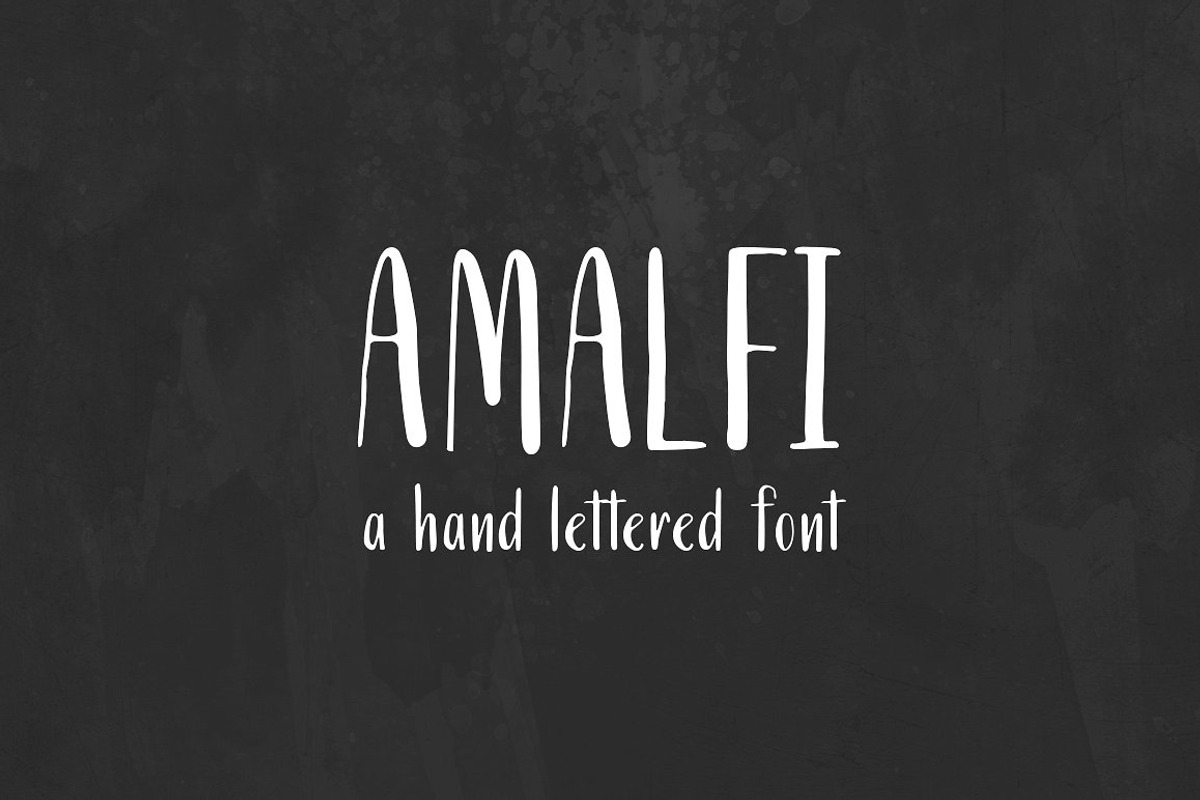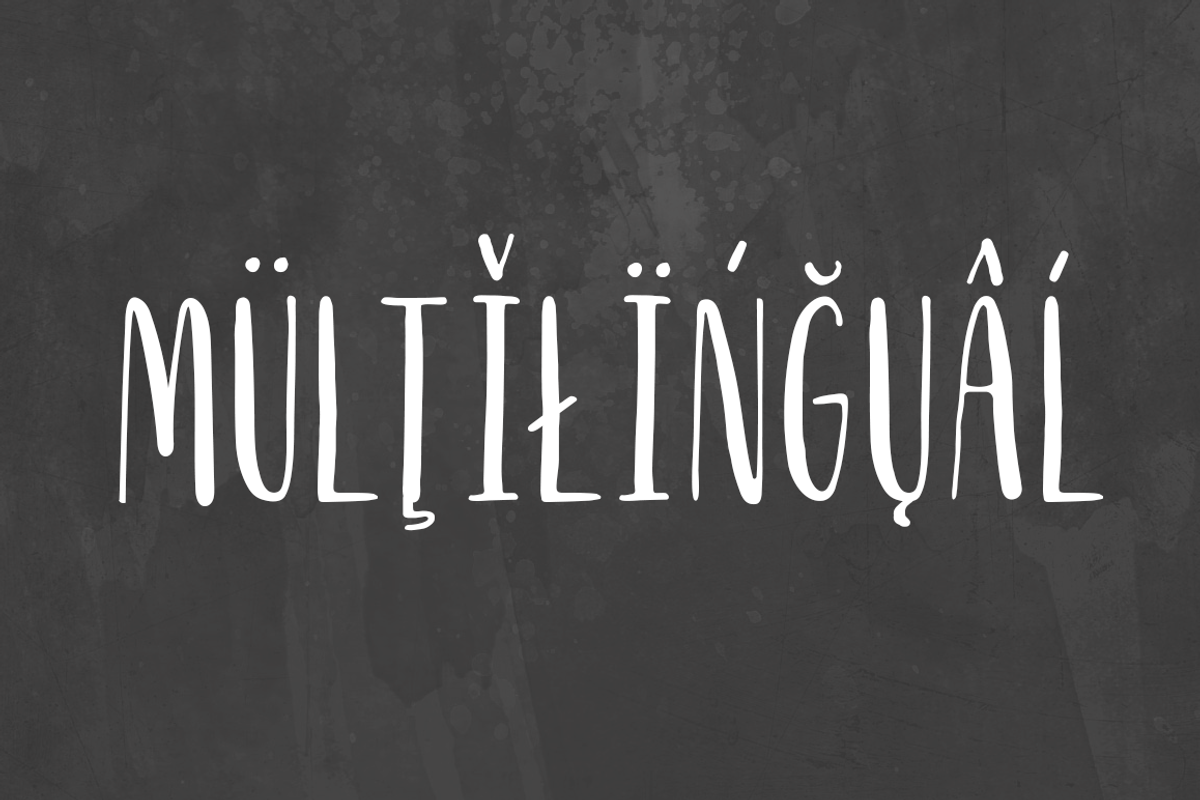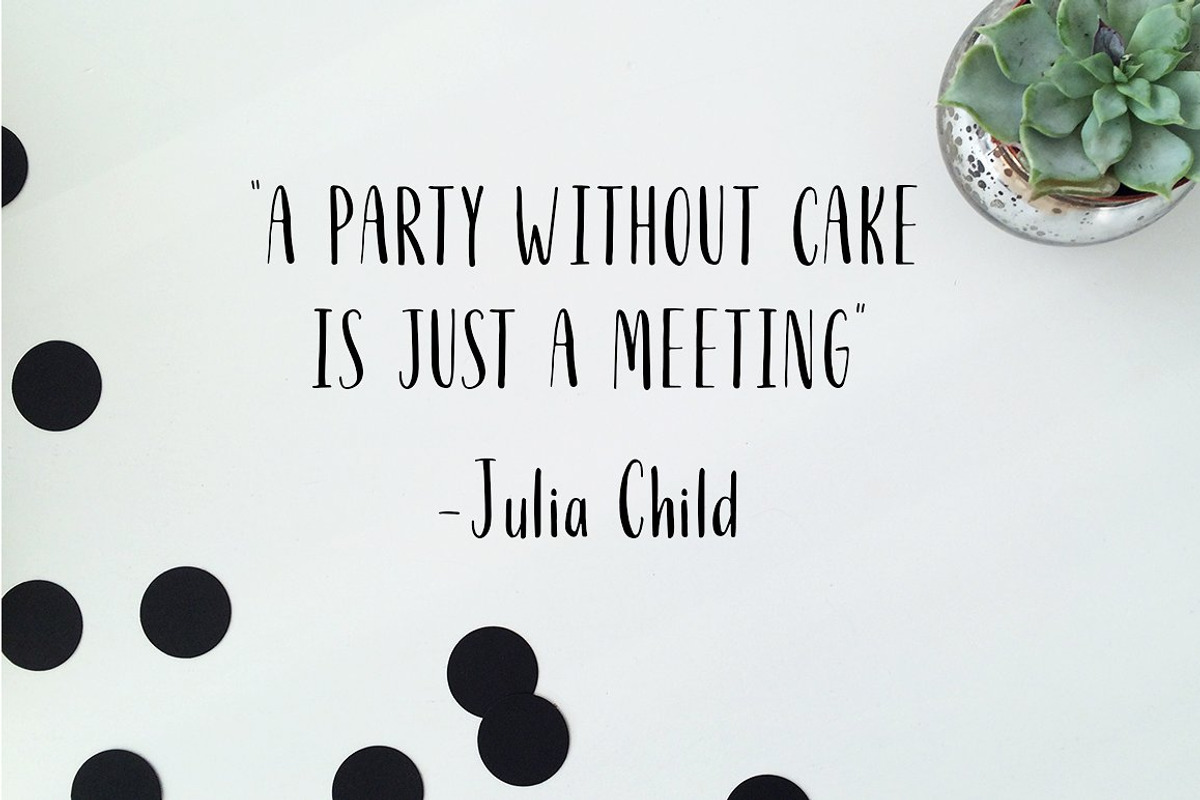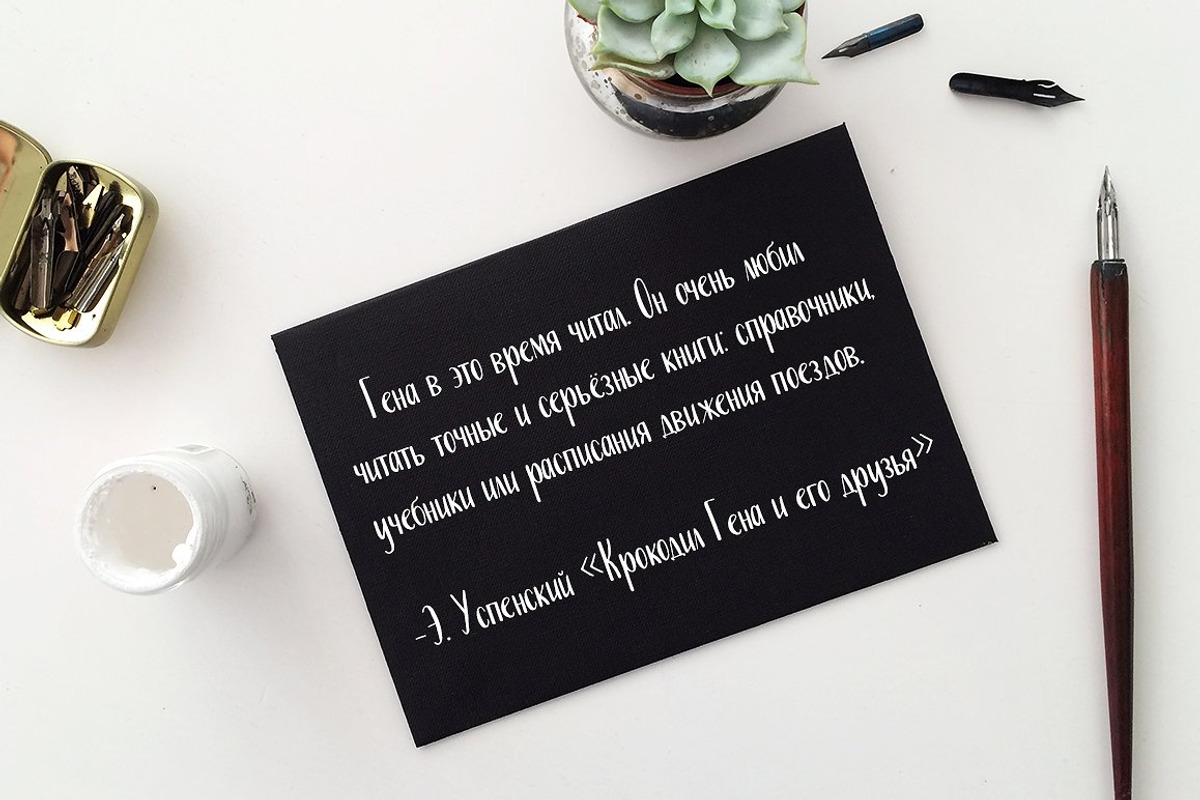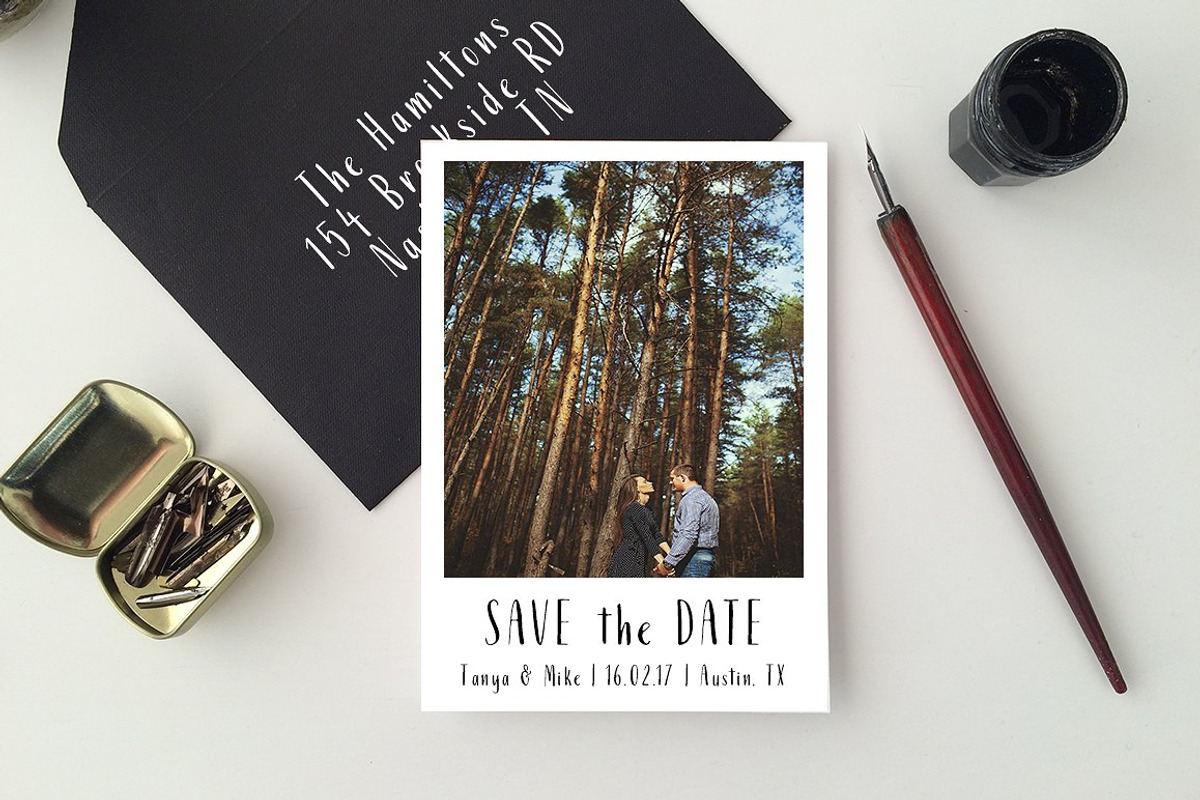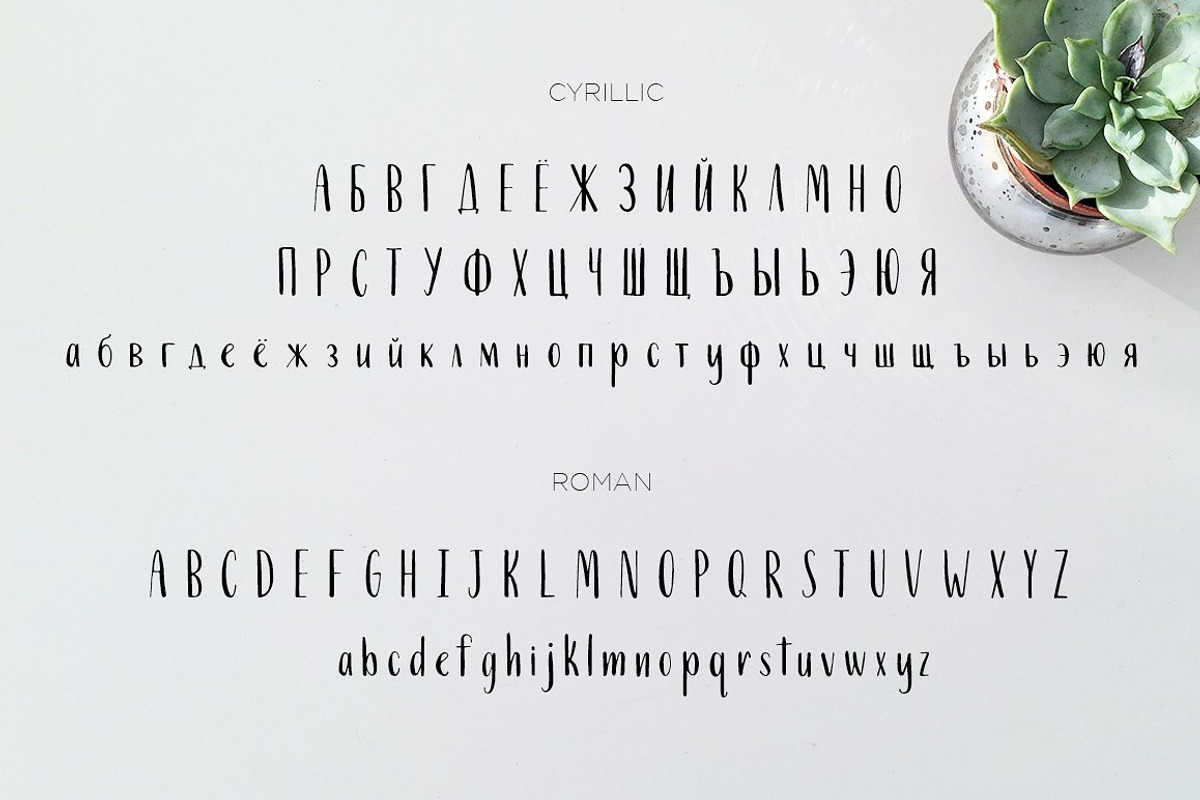
Amalfi. Multilingual + Cyrillic Font
Amalfi is a hand written pointed pen calligraphy font that is filled with personality. It includes most European languages plus Cyrillic. Great for use in cards, invites, holiday decor, quotes, labels, packaging design, etc.
Amalfi font comes with upper and lowercase characters in both Latin and Cyrillic, numbers, marks, punctuation, and multilingual support.